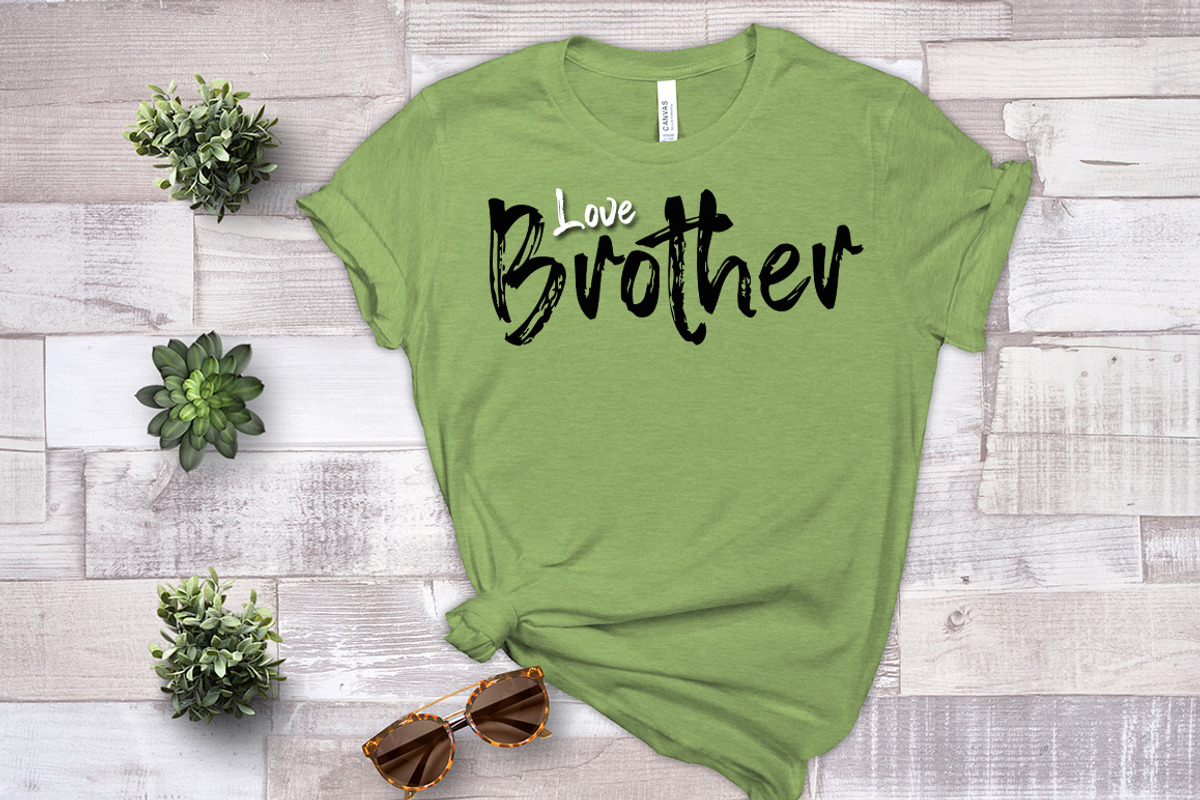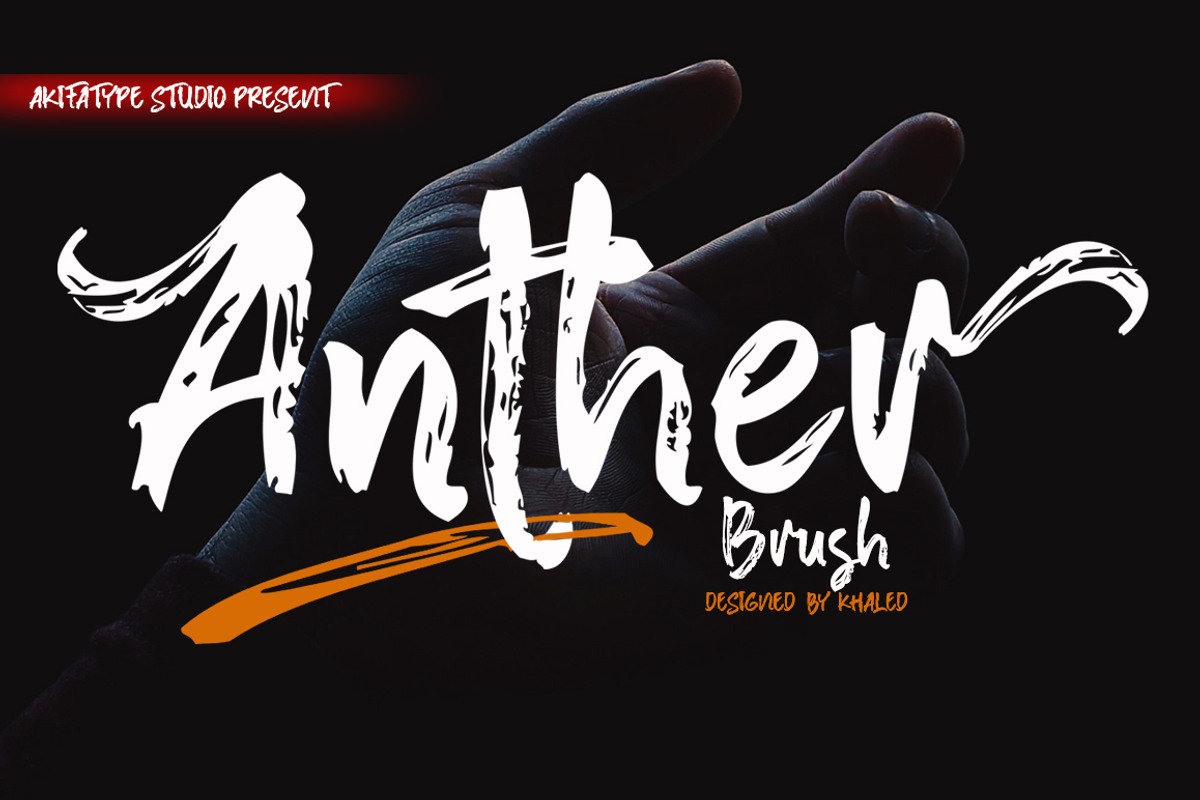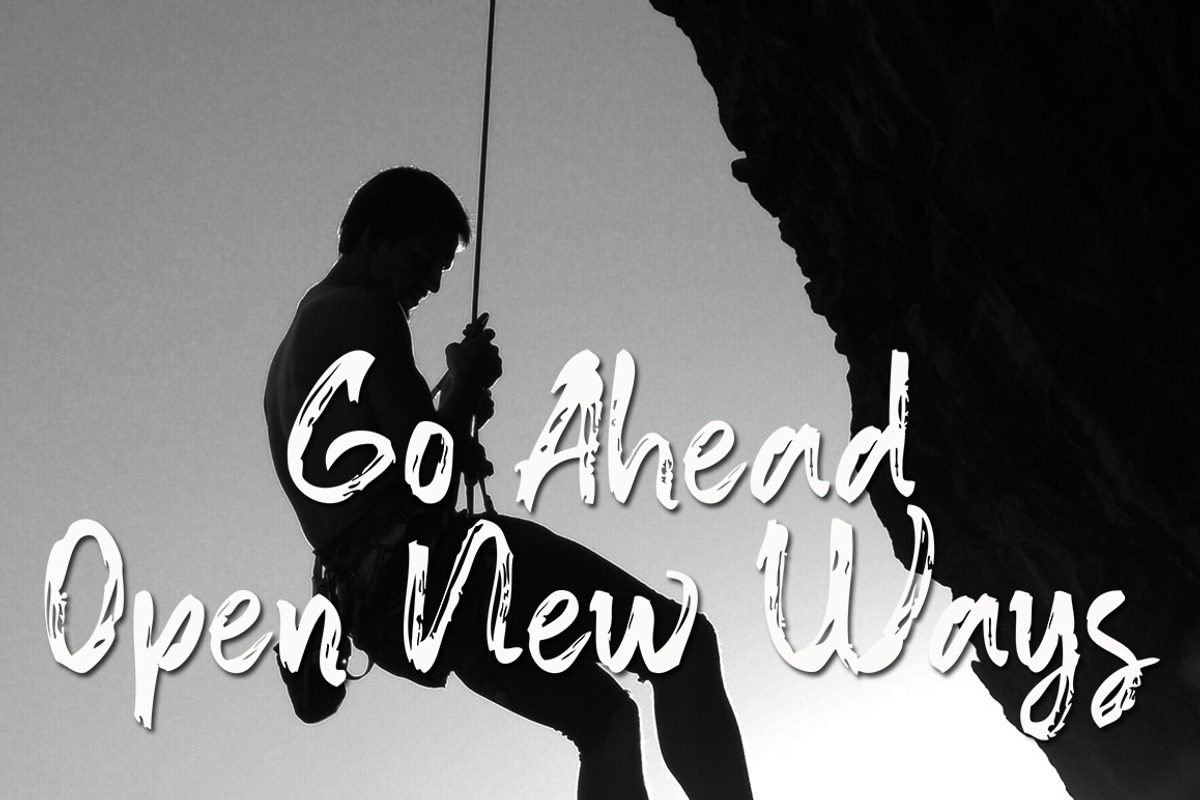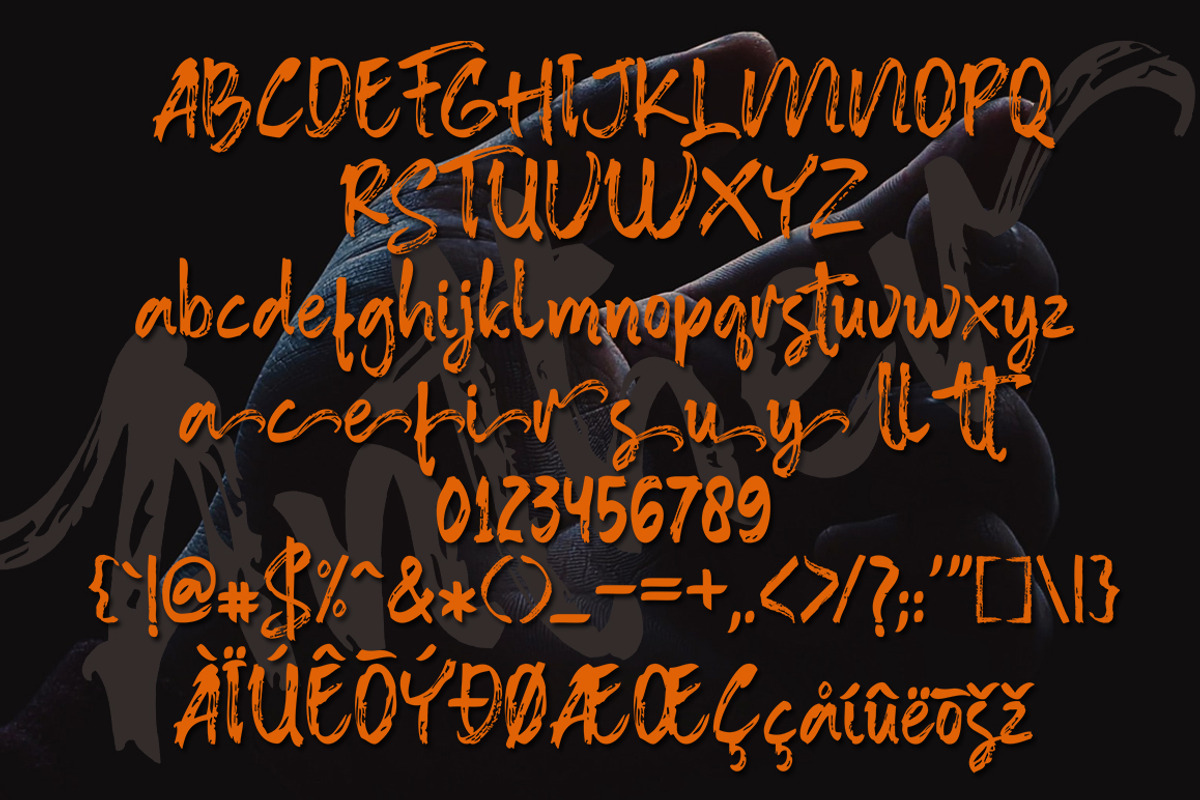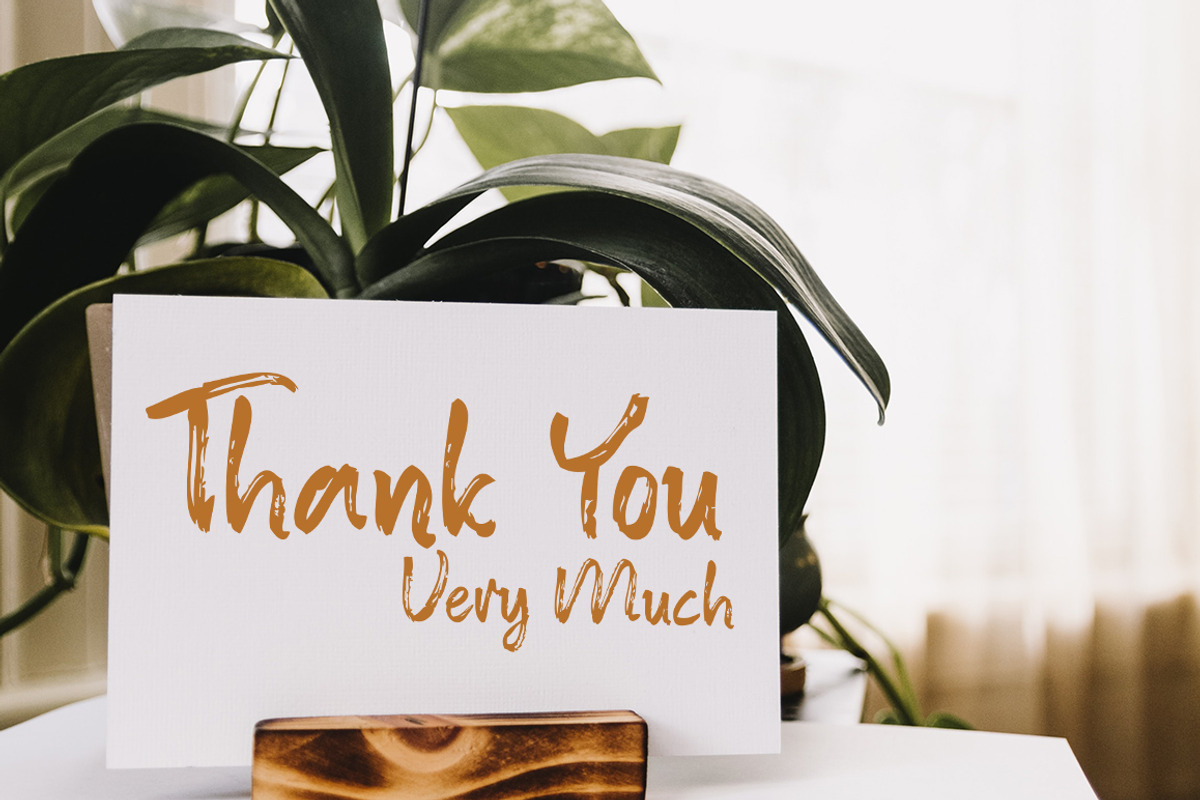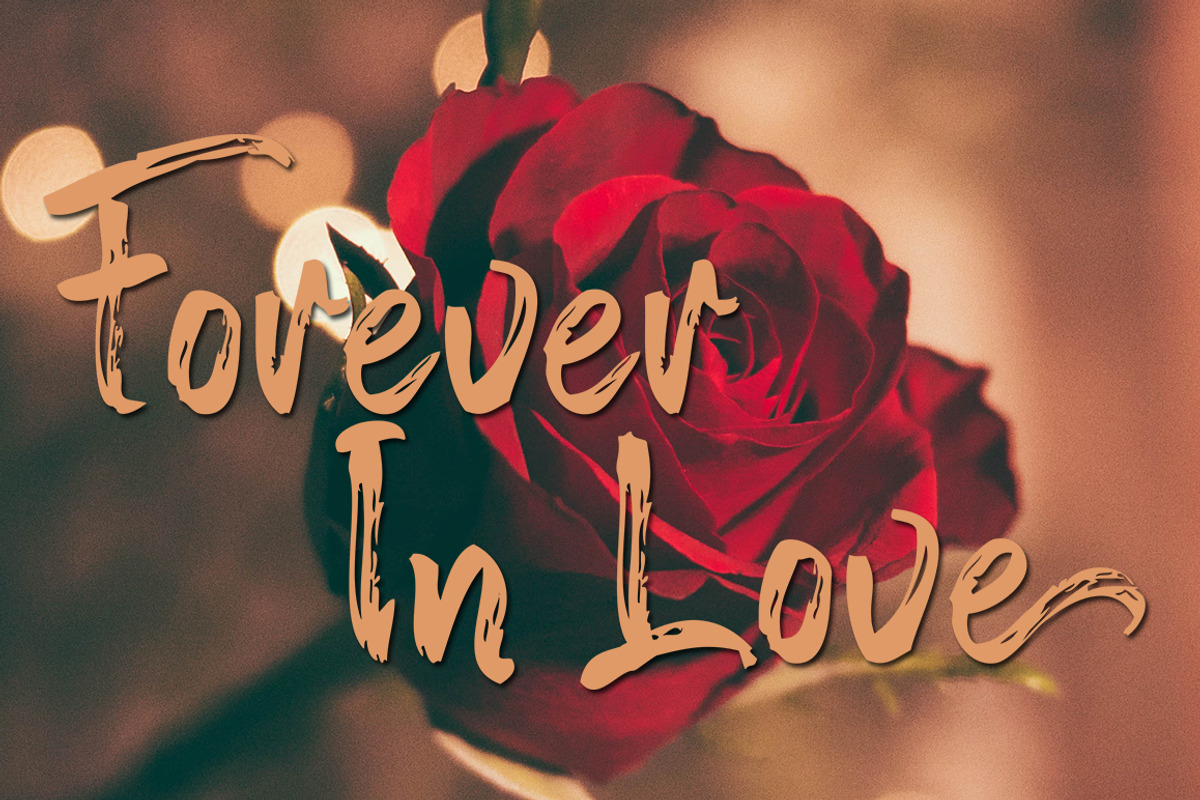
Anther Brush
Anther Brush is a textured brush font, a contemporary approach to design, naturally handmade. It also has alternatives and ligatures that make your design more attractive.Suitable for use in title design such as clothing, invitations, tittle books, stationery designs, quotes, branding, logos, greeting cards, t-shirts, packaging designs, posters and more